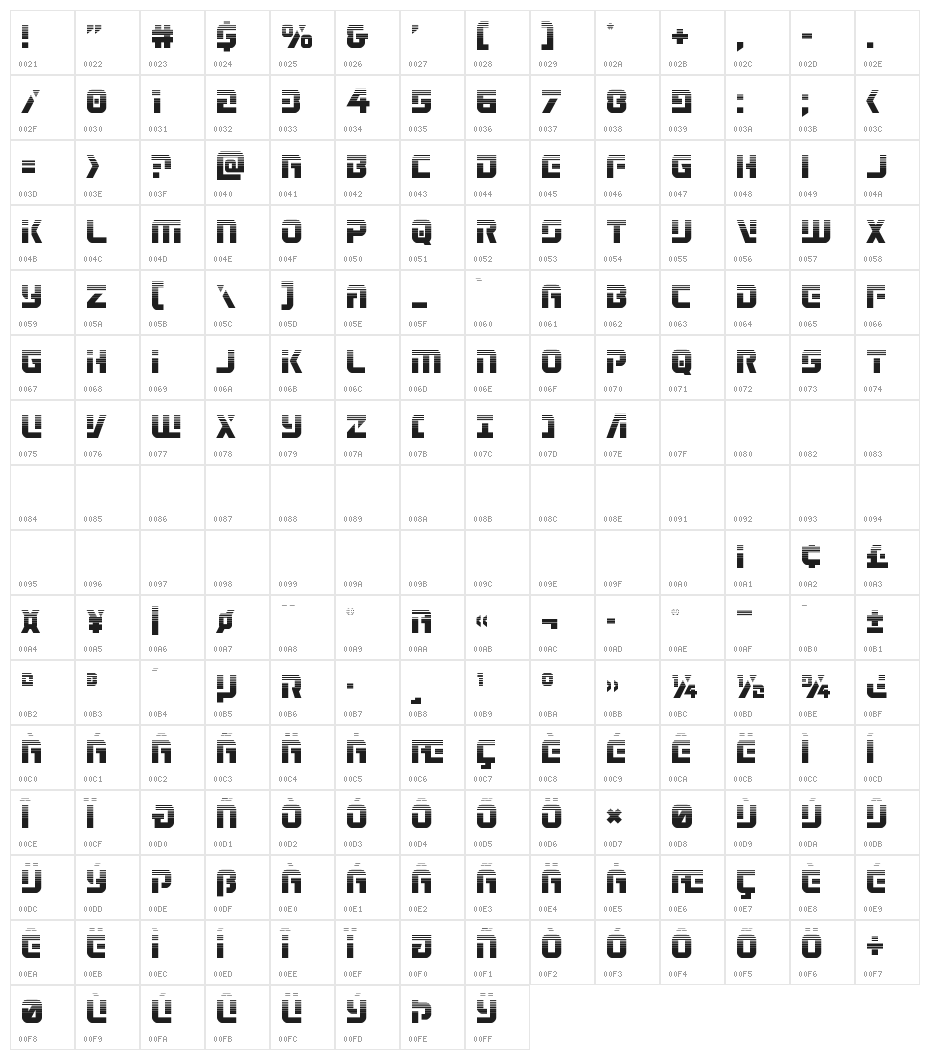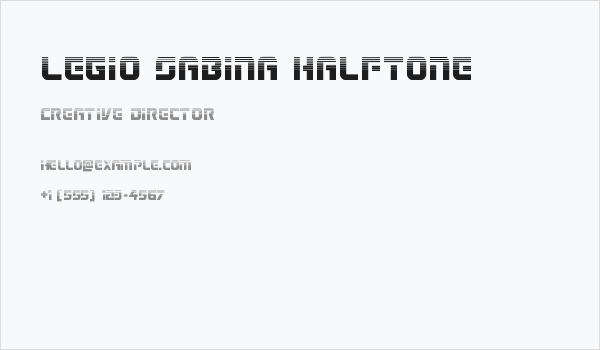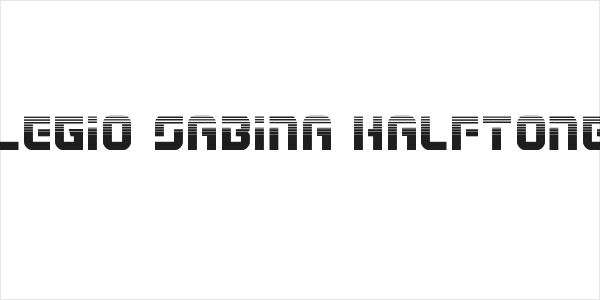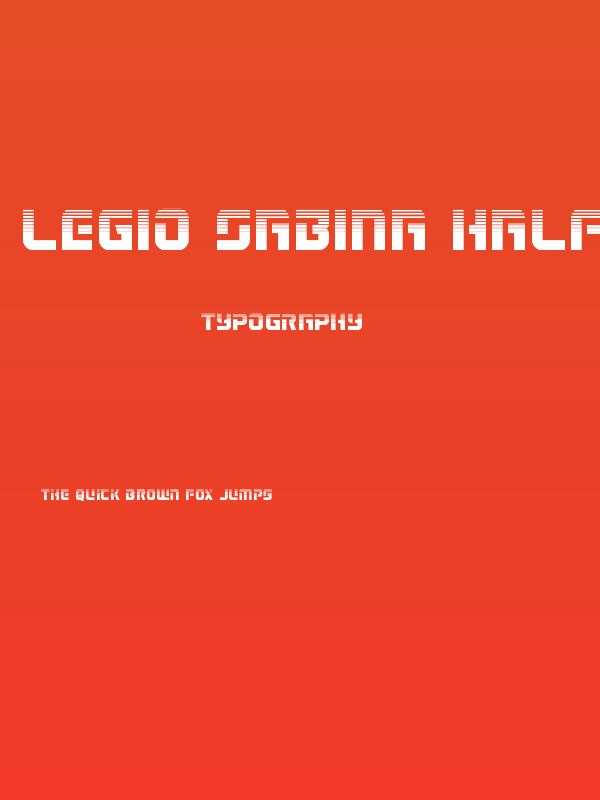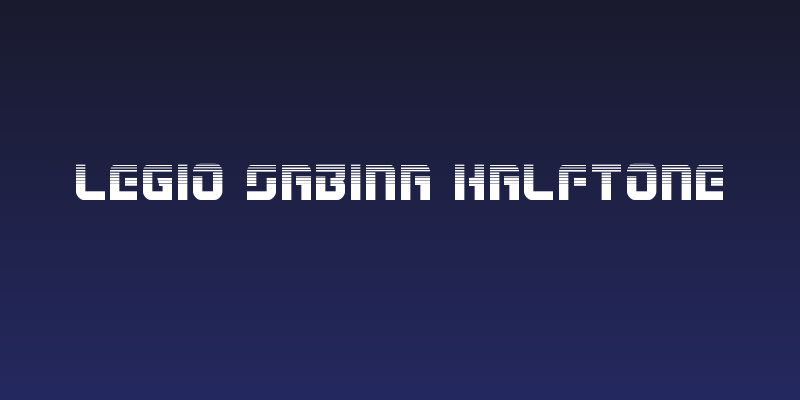
Legio Sabina Halftone Font
Legio Sabina Halftone Description
This font features a bold, geometric style with a distinctive halftone pattern that gives it a modern, digital appearance. The characters are constructed with strong horizontal lines that create a sense of movement and depth. The uppercase and lowercase letters maintain a consistent width, contributing to a uniform look. The numerals and special characters follow the same design principles, ensuring cohesion across all glyphs. This font's unique aesthetic makes it ideal for projects that require a futuristic or tech-inspired theme.
| Proposed Projects | Ideal for tech-themed designs, digital art, futuristic branding, and modern posters. |